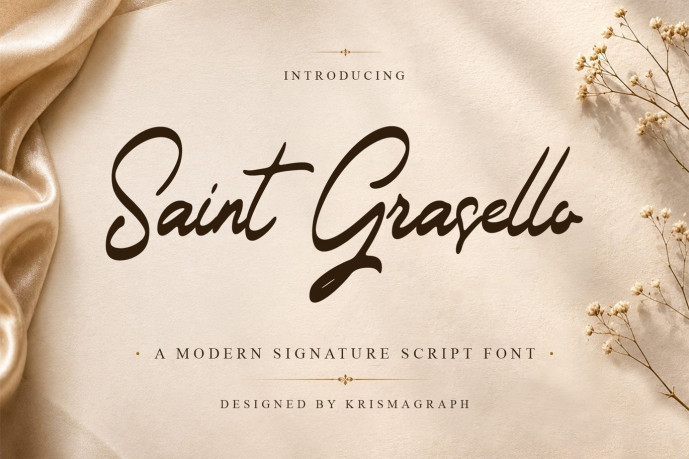
Saint Grasello – Signature Font
Designer: Ratna Krismawati
Saint Grasello is a sophisticated modern signature script font that captures the beauty of authentic handwriting with refined elegance and contemporary style. Designed with smooth flowing strokes, graceful curves, and natural movement, this font delivers a luxurious handwritten appearance while maintaining excellent readability and versatility.
Every character is carefully crafted to create seamless letter connections, giving your typography a genuine signature feel that looks elegant, personal, and professional. Saint Grasello is perfect for designers looking to add warmth, exclusivity, and premium character to their creative work.
Whether you’re designing elegant branding, editorial layouts, luxury packaging, invitations, social media graphics, beauty campaigns, product presentations, photography watermarks, website headers, or sophisticated marketing materials, Saint Grasello provides a timeless handwritten aesthetic that elevates every composition.
The font includes beautiful alternates and ligatures, allowing you to create natural-looking typography with effortless style. Combined with multilingual support, Saint Grasello offers flexibility for designers working on international creative projects.
FEATURES:
Uppercase
Lowercase
Multilingual support
Ligature & alternates
Ideal for large headlines & displays
Punctuation
Numerial